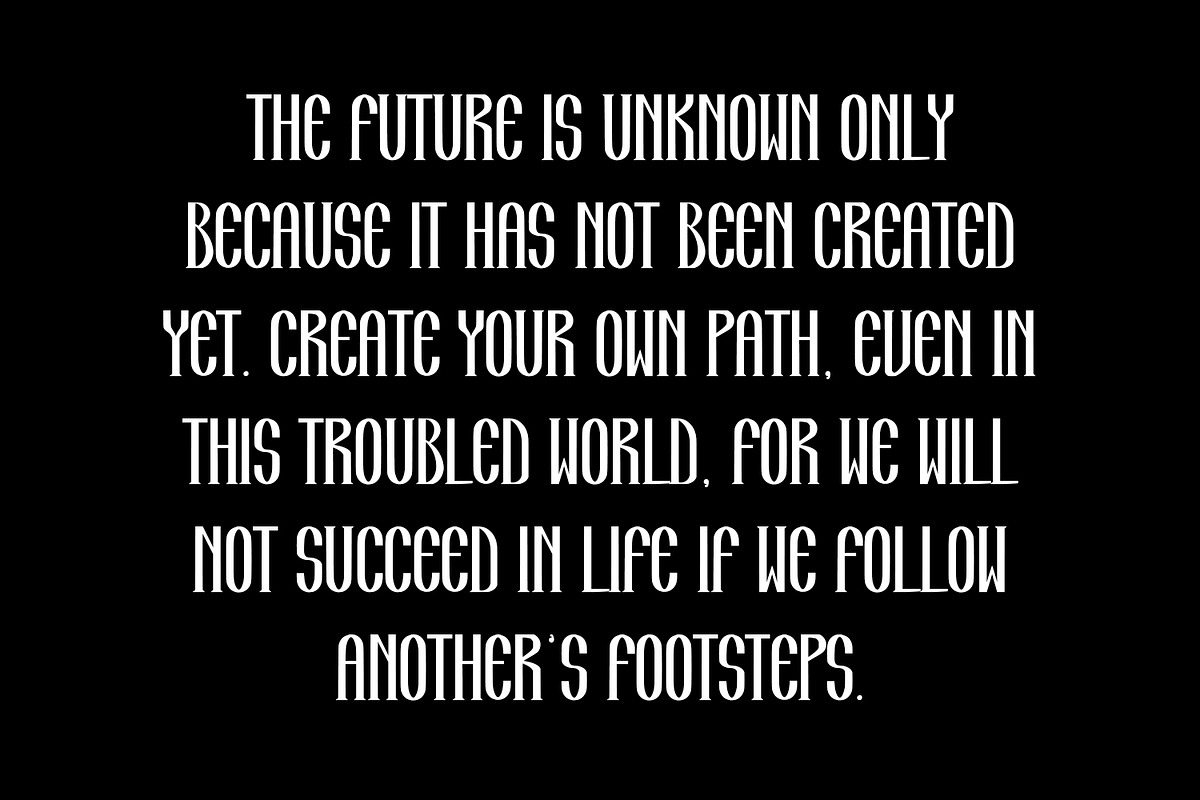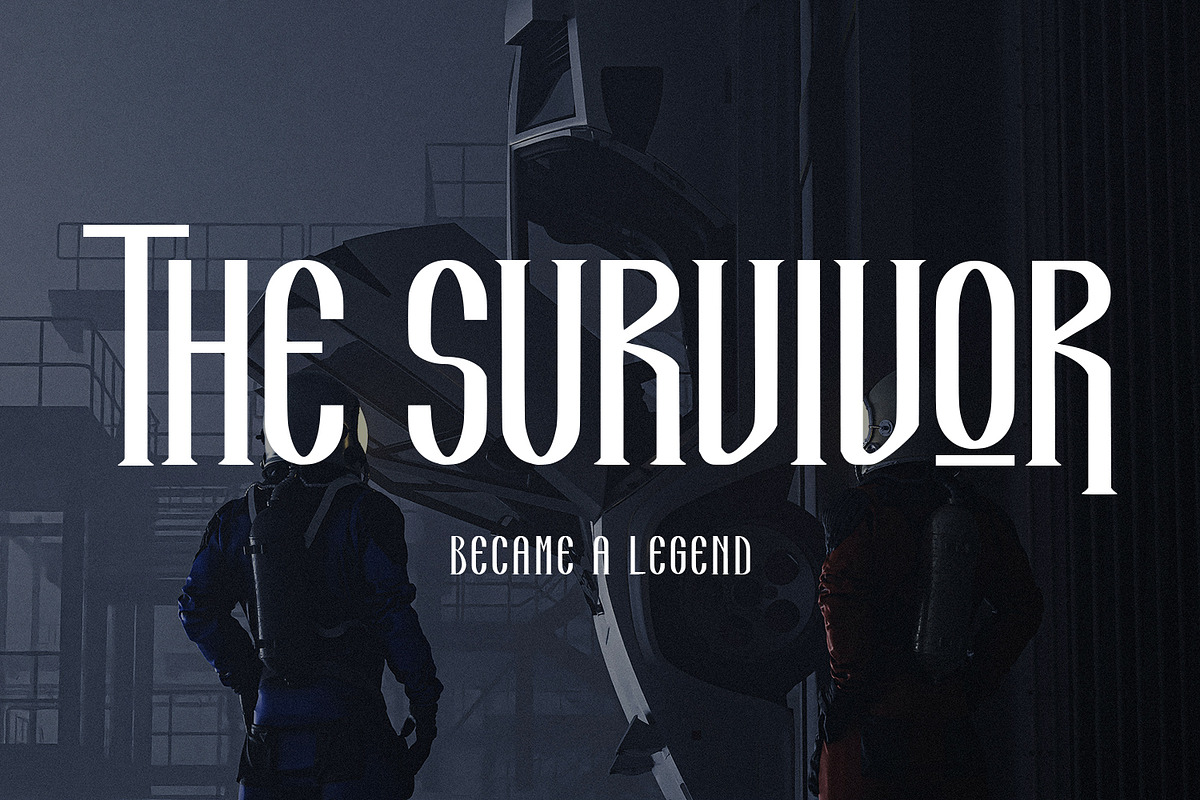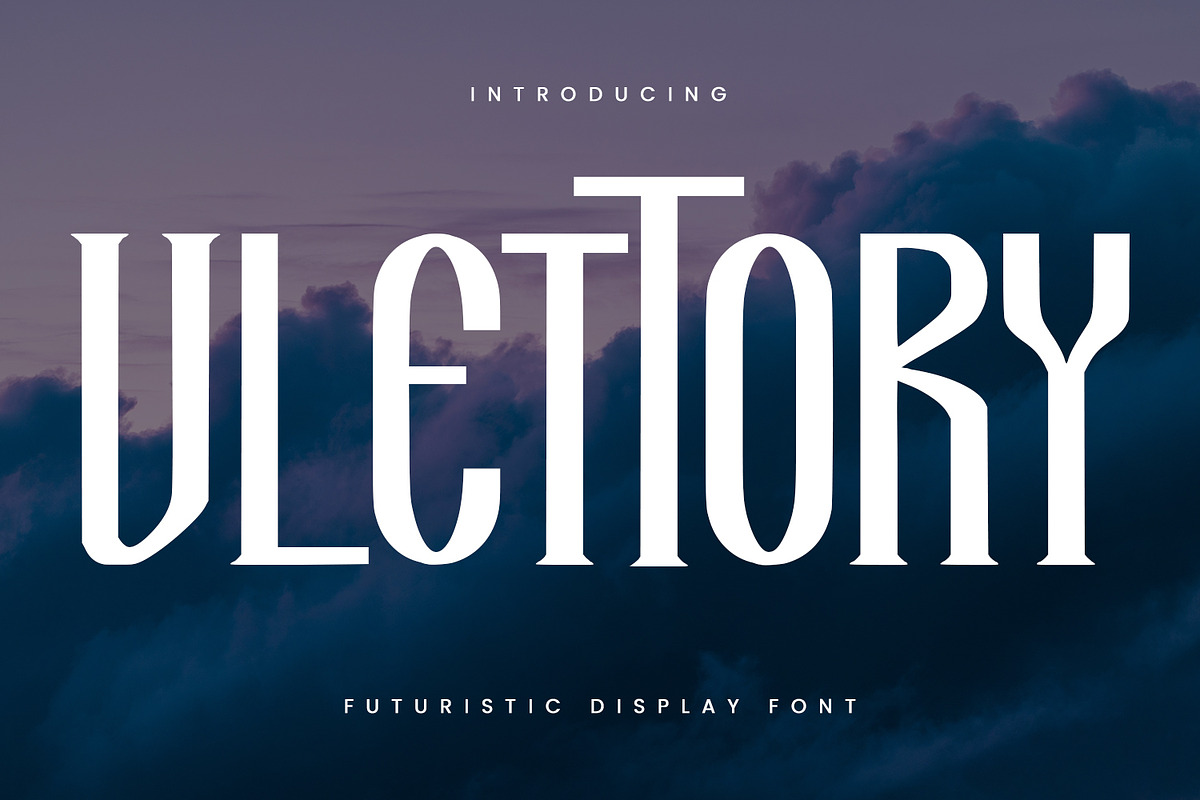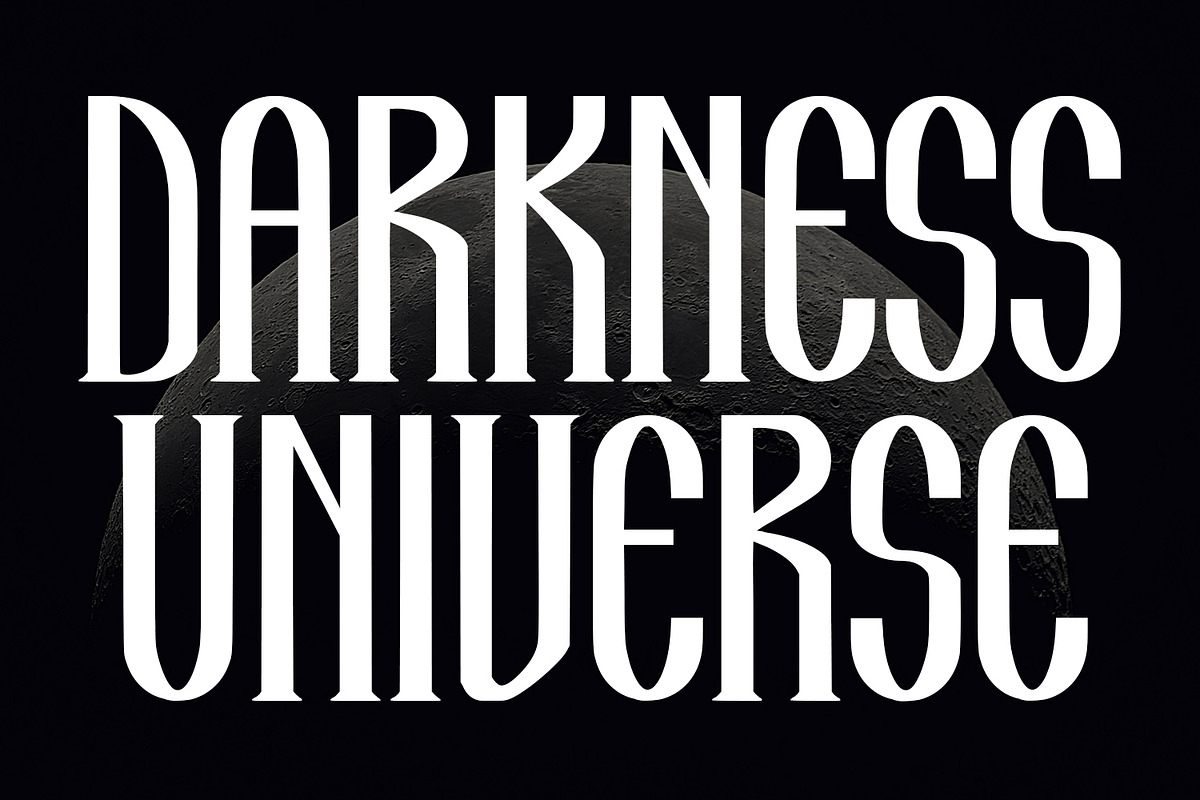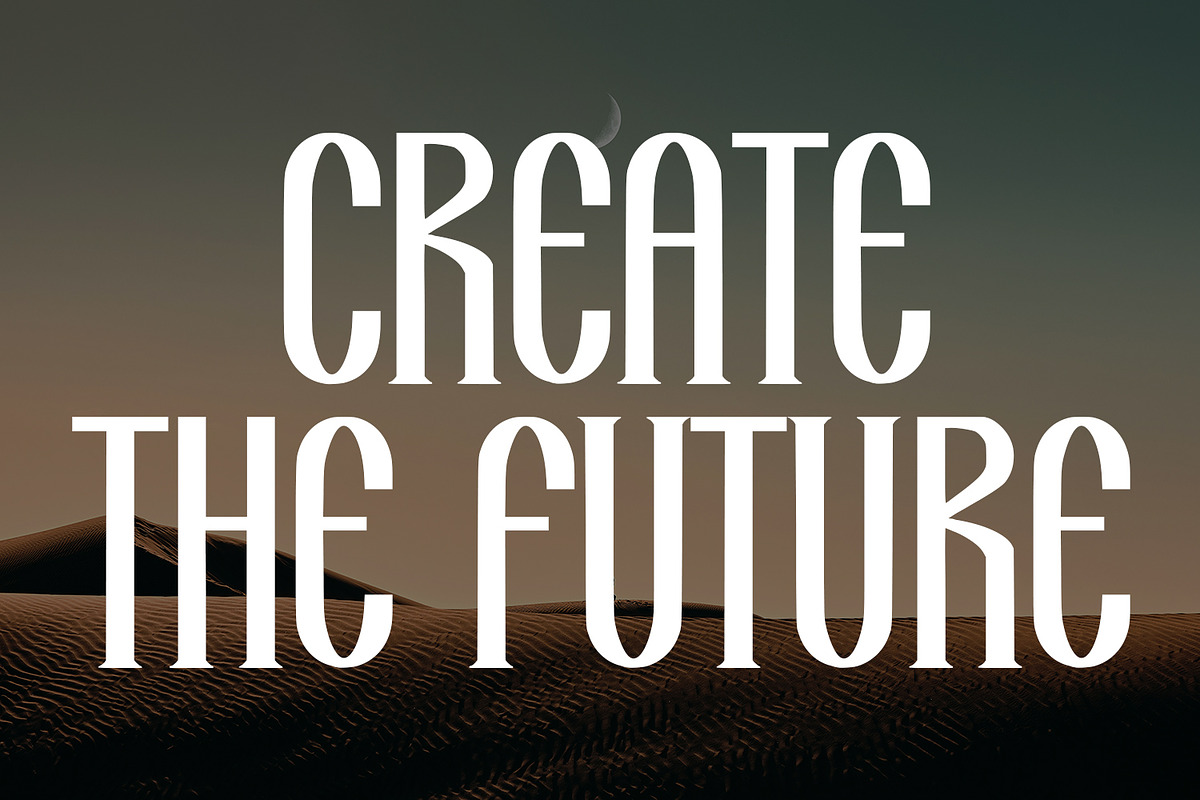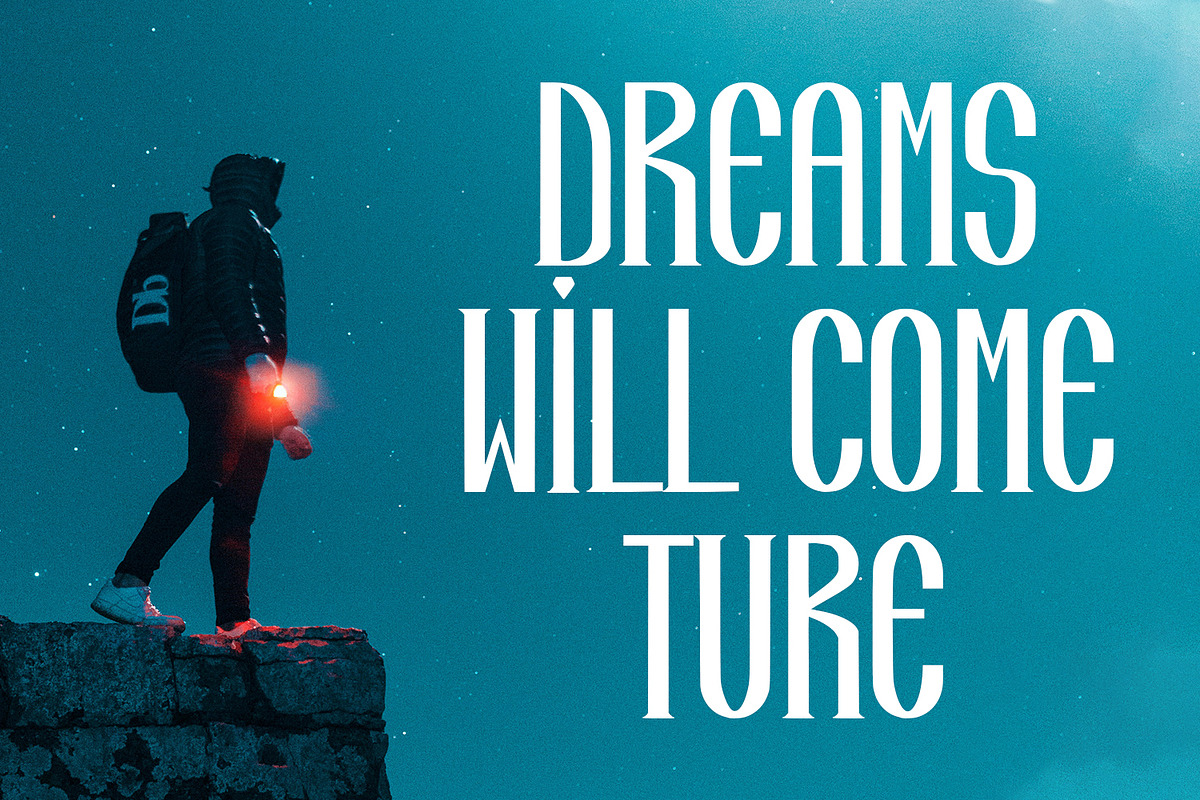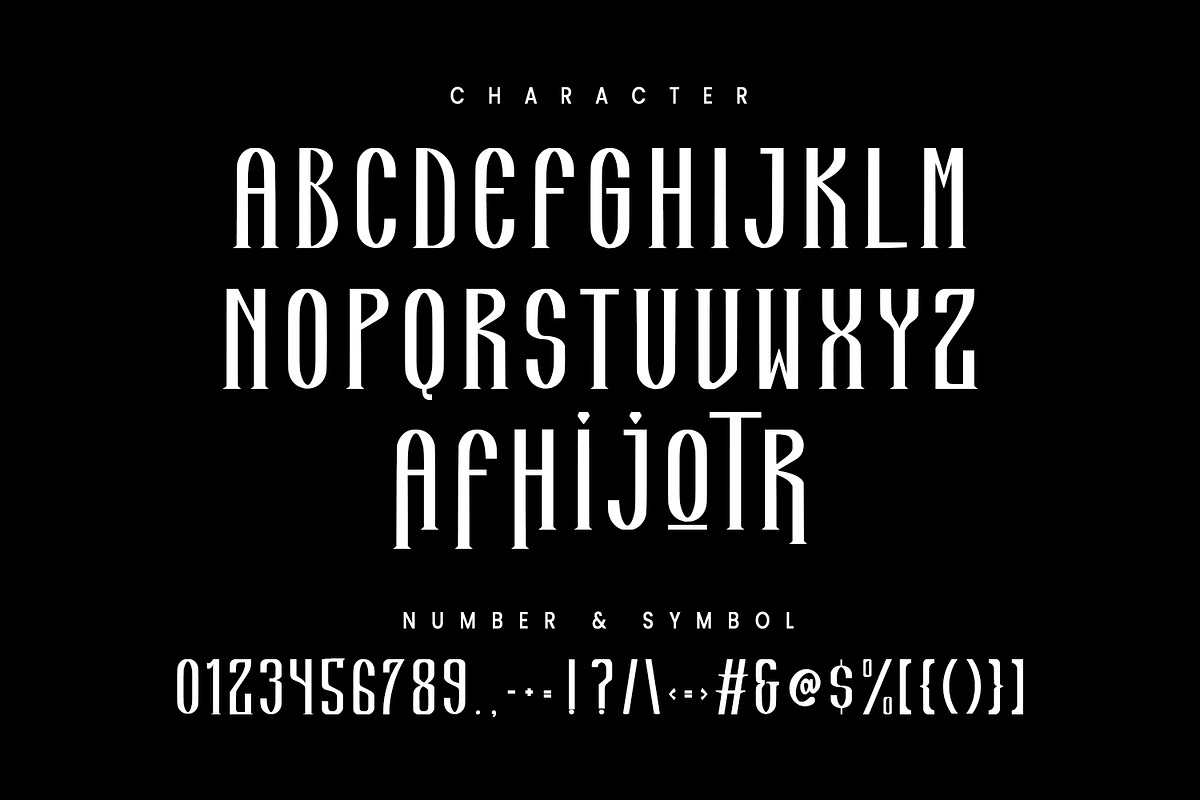
Vlettory Futuristic Display Font
Vlettory futuristic display font is a handmade Modern Victorian handlettering, which is combining modern and classic typography with some awesome alternates. This font is good for logo design, Social media, Movie Titles, Books Titles, a short text even a long text letter and good for your secondary text font with script or signature typeface. Make a stunning work with Vlettory futuristic display font.